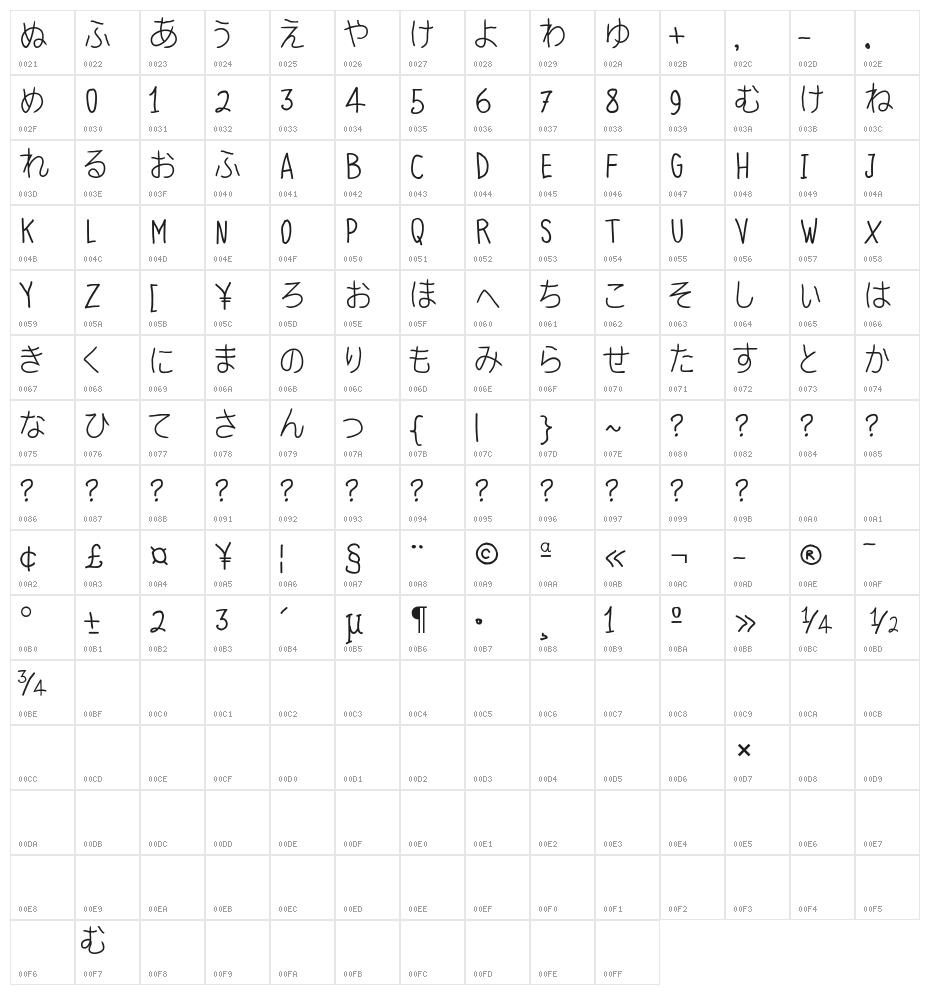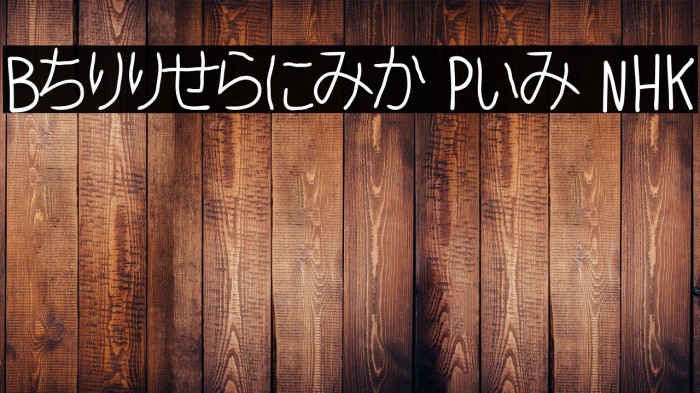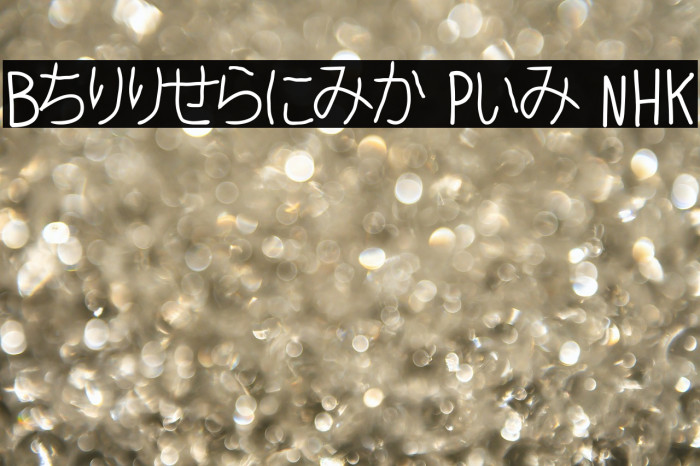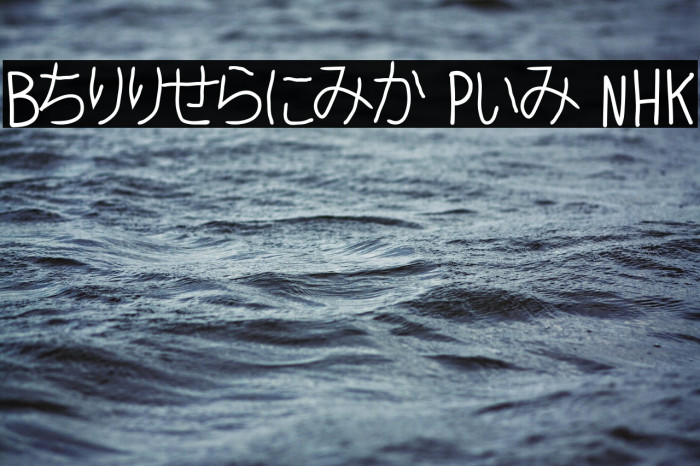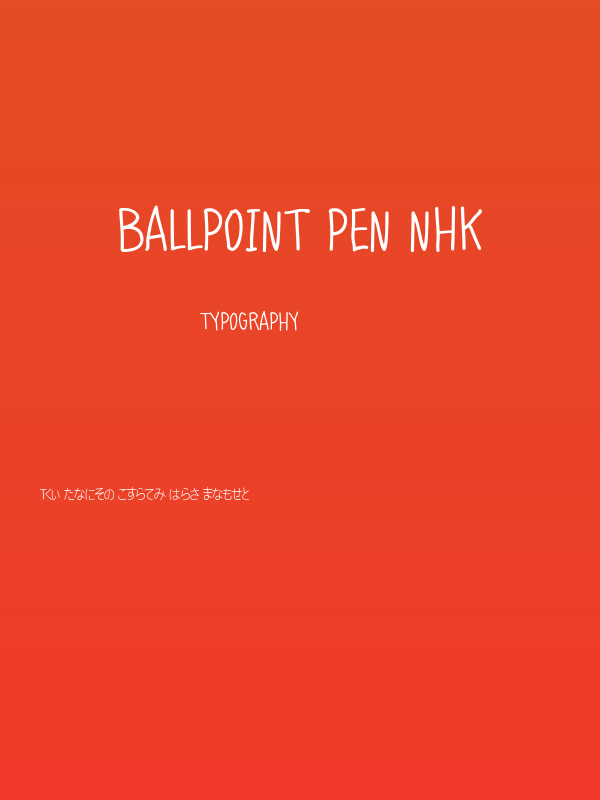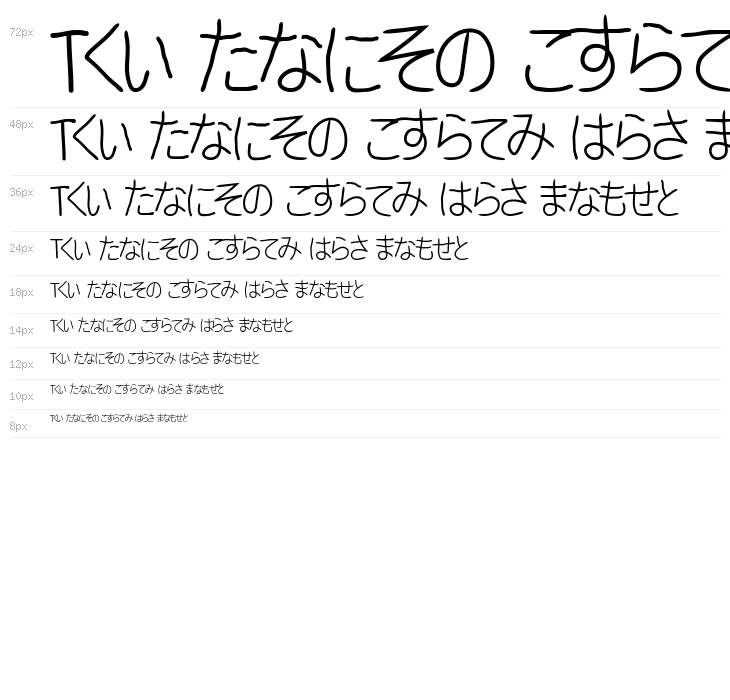
Ballpoint Pen NHK Font
Ballpoint Pen NHK Description
This font exudes a casual and friendly vibe, reminiscent of handwriting with a ballpoint pen. The characters are slightly irregular, adding a personal touch and warmth. The strokes are smooth and consistent, with a medium thickness that ensures readability. The overall appearance is informal yet clear, making it suitable for projects that require a human touch. The font includes both uppercase and lowercase letters, numerals, and a variety of special characters, providing versatility for different design needs.
| Proposed Projects | Ideal for personal notes, informal invitations, children's books, and creative projects that benefit from a handwritten feel. |